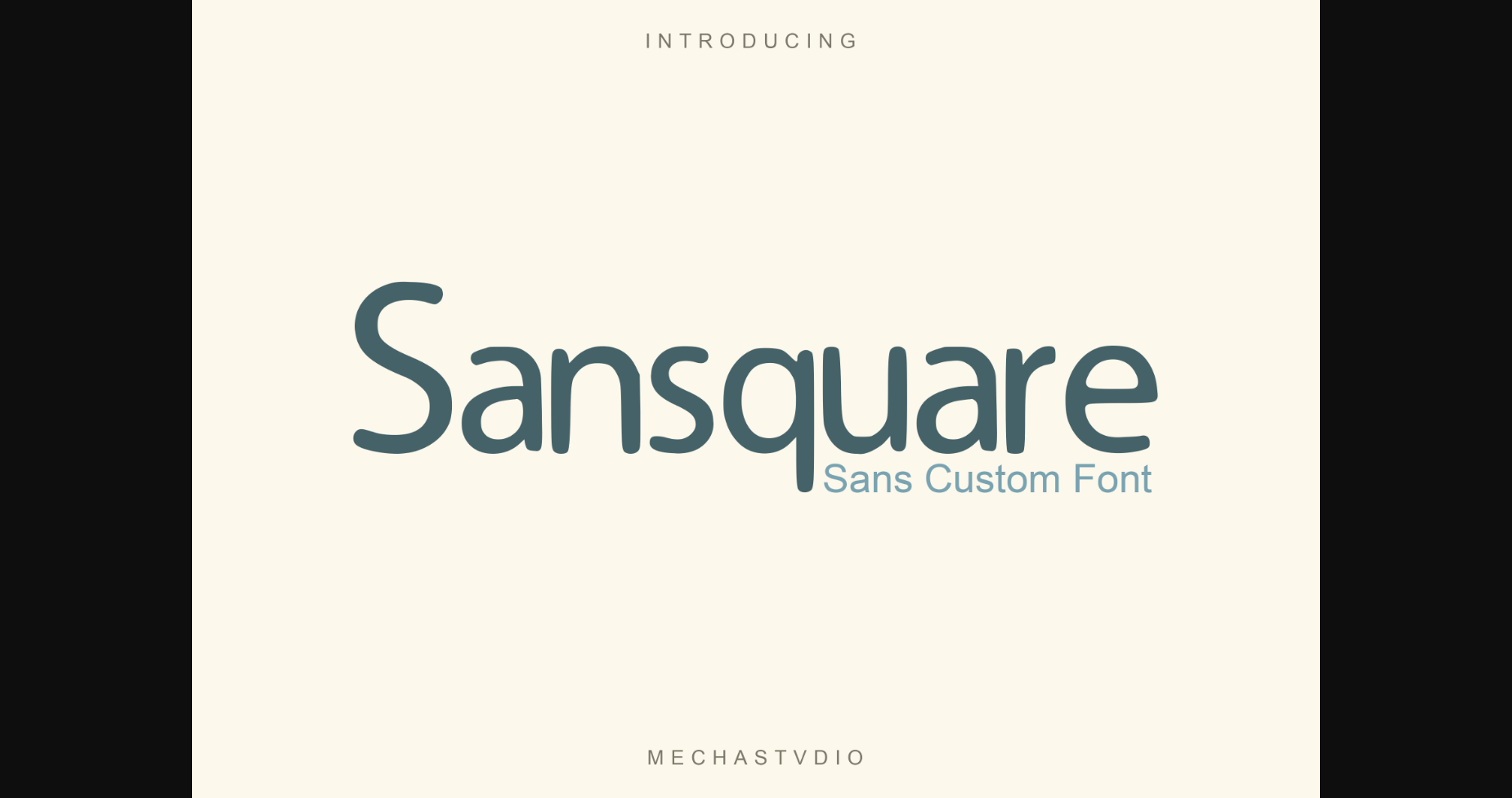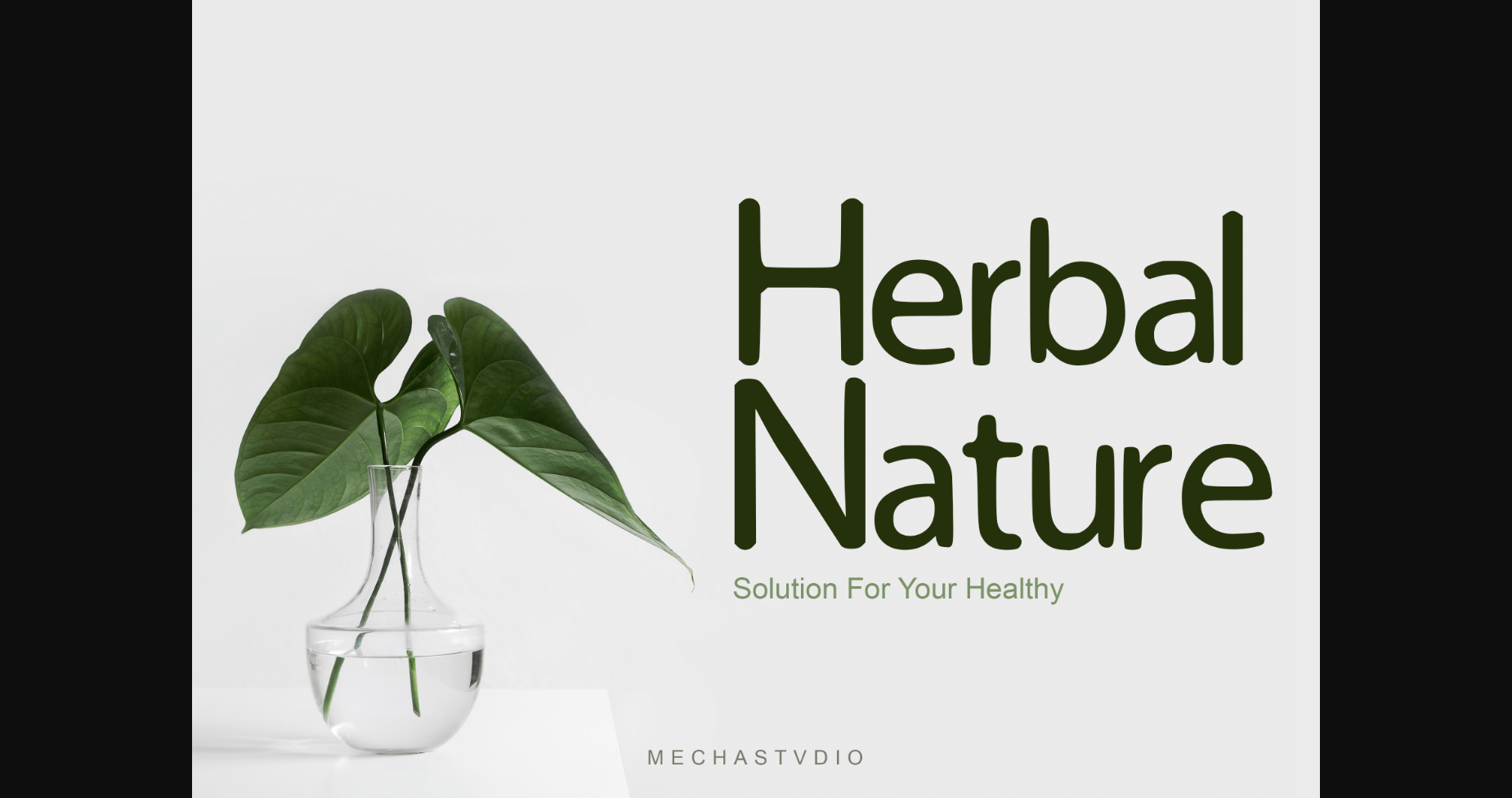
Sansquare Font
About Sansquare Font
Sansquare is a simple sans serif font with a unique feel and a stunning impact. It will add a natural spark to any design project that you wish to create.